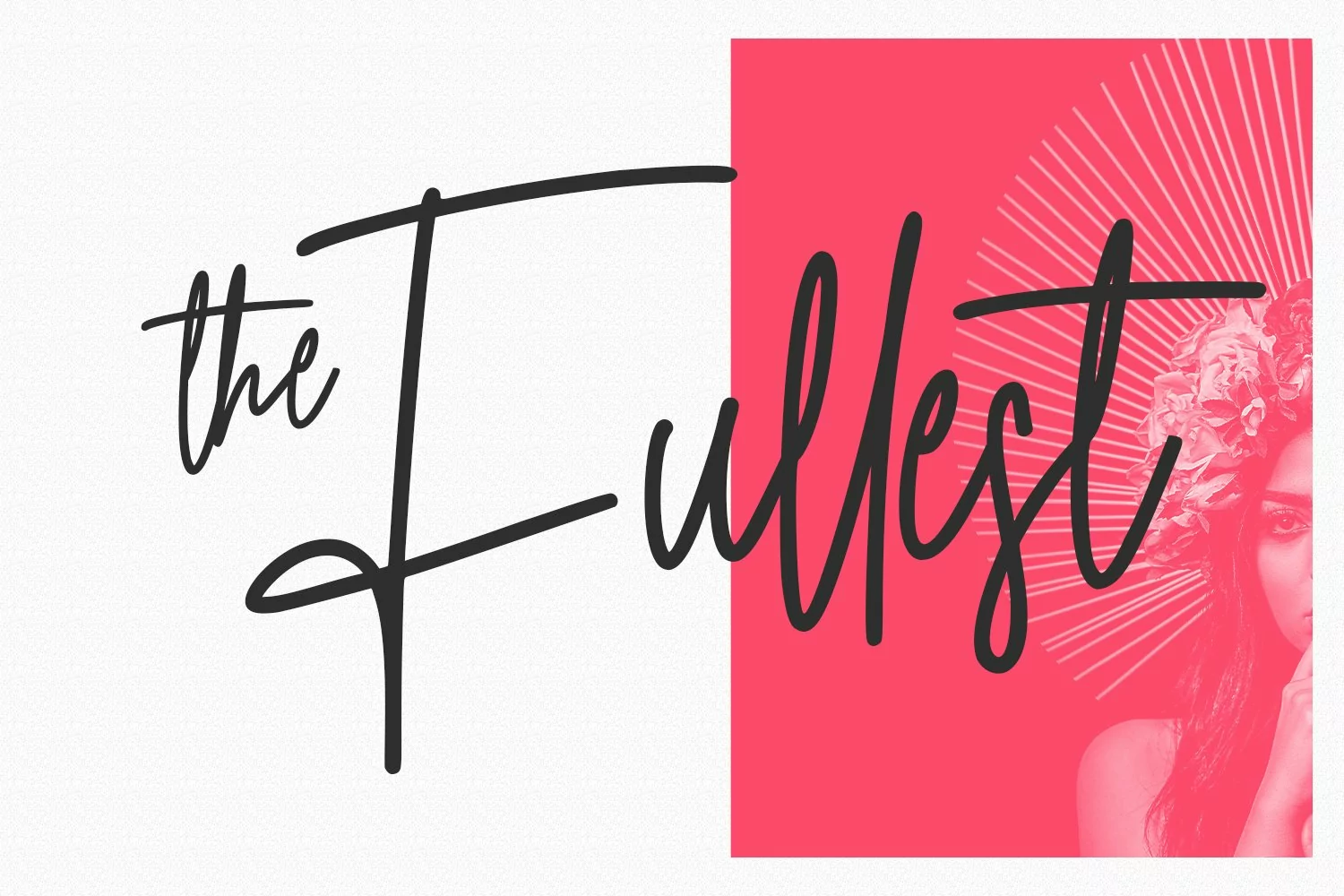
Jim Holly is a tall signature script font. With regular mono-line consist stroke, fun character with a bit of ligatures and alternates. To give you an extra creative work. Jim Holly font support multilingual more than 100+ language. This font is good for logo design, Social media, Movie Titles, Books Titles, a short text even a long text letter and good for your secondary text font with sans or serif. Make a stunning work with Jim Holly font.
Jim Holly